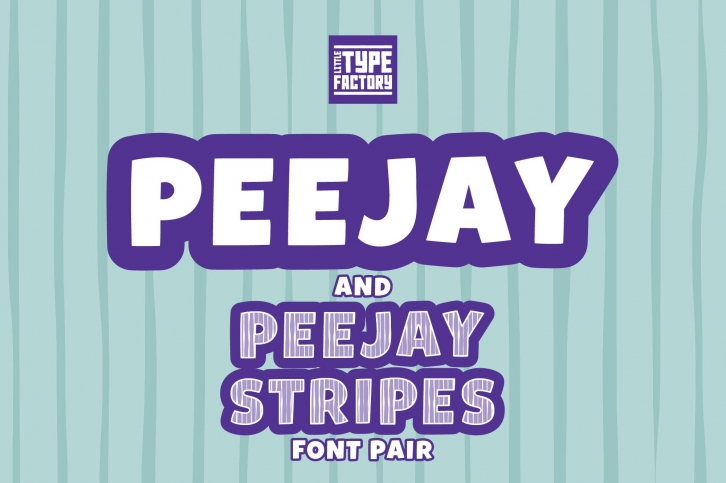
Peejay & Peejay Stripes Font Pair
Peejay and Peejay Stripes Font Pair is a fun and funky font to inject some life into your projects. Comes as a solid font (Peejay) and also as a stripey version (Peejay Stripes). A bold and quirky font for many uses from t-shirts to mugs and looks great in headlines and quotes.
Full uppercase, lowercase and special characters. Includes the full European character set including western, central and south eastern glyphs.